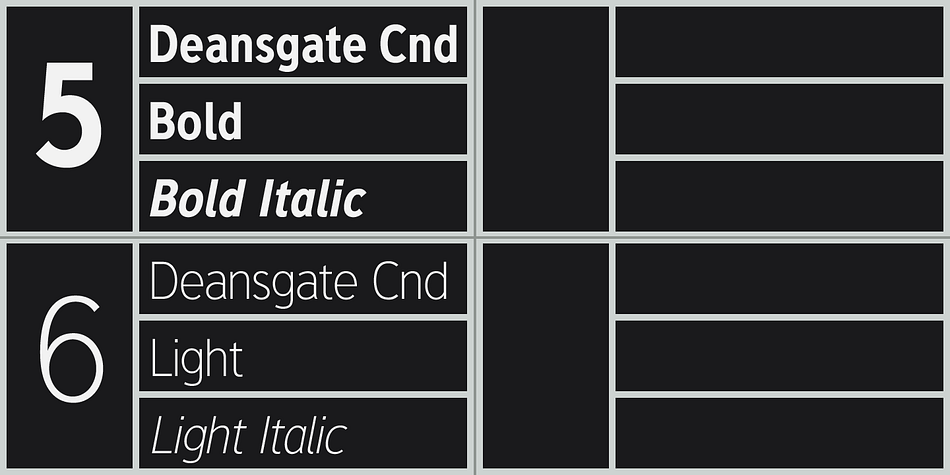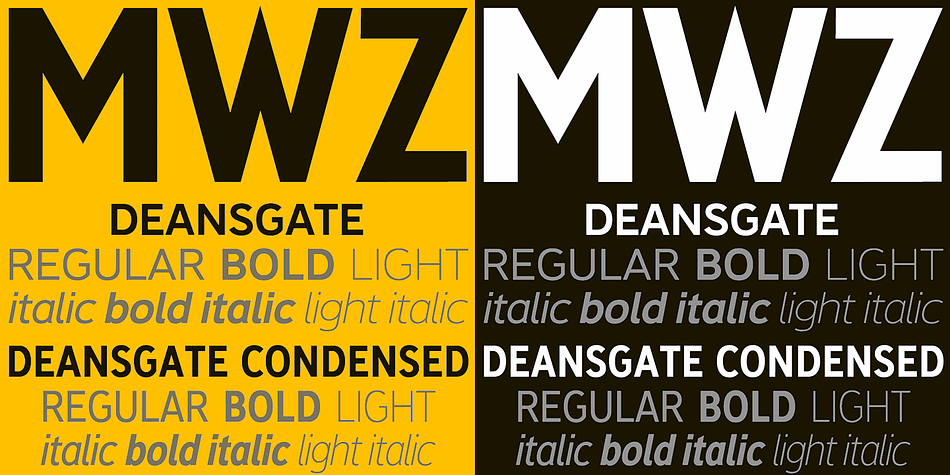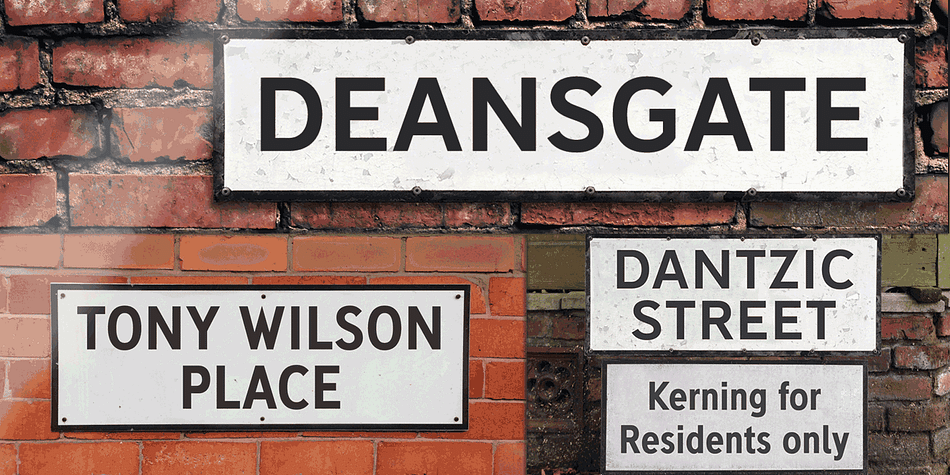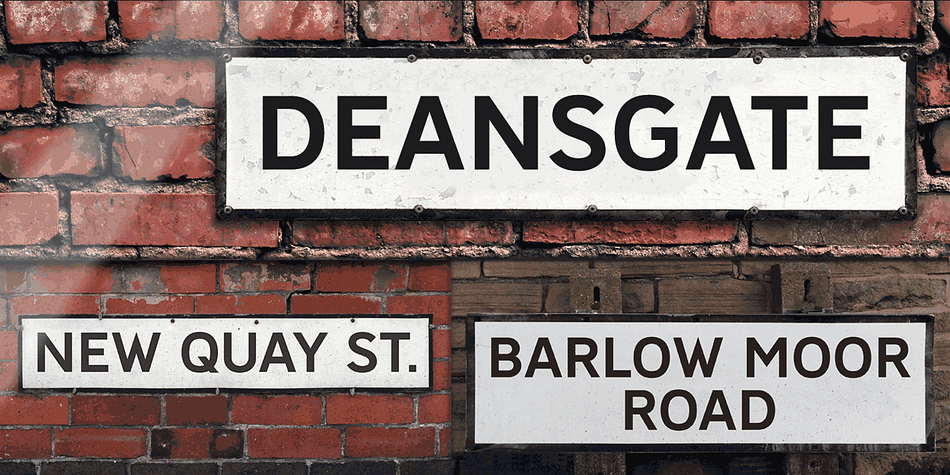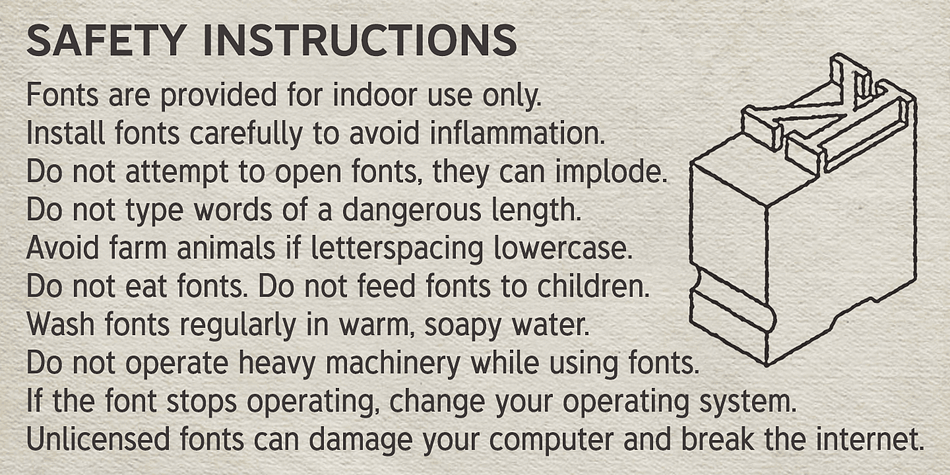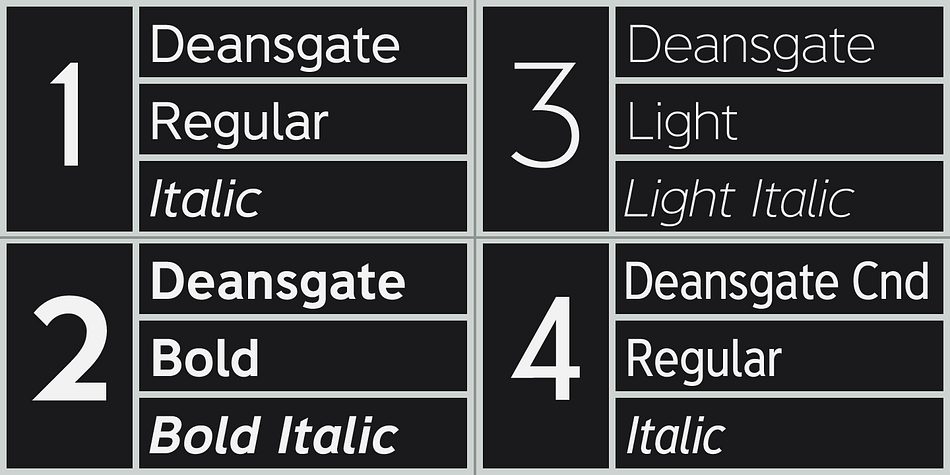
Designed by Keith Bates, Deansgate is a sans serif font family. This typeface has twelve styles and was published by K-Type.
Deansgate and Deansgate Condensed are based on the clearest and most distinctive of the sans-serif letterforms used on Manchester street nameplates, and easily identified by a pointy Z and pointed vertex/apex on M and W.
The Bold weights of each family are perfect for signage, with almost monoweight strokes designed for easy reading, close up or at distance, and with the legible, slightly ‘squarified’ round shapes normally associated with grotesque faces. The new lowercase tips the hat to the Transport fonts, and the Regular and Light weights transfer the clarity of the Bold faces to Deansgate’s text fonts which are ideal for use on the web or in print. Each weight has a complementary Italic.